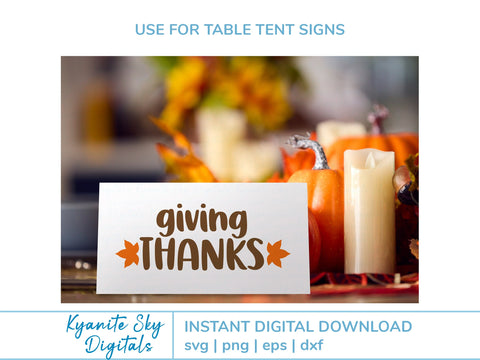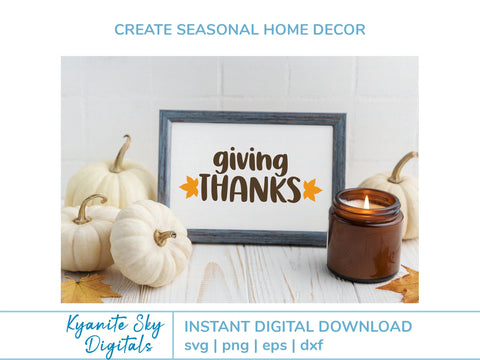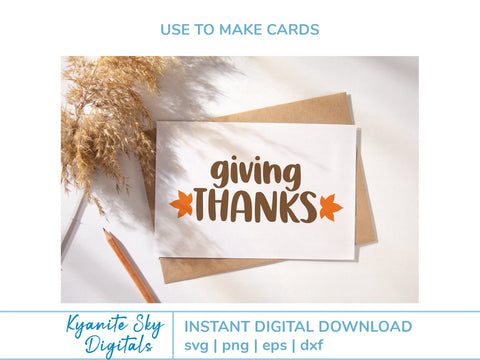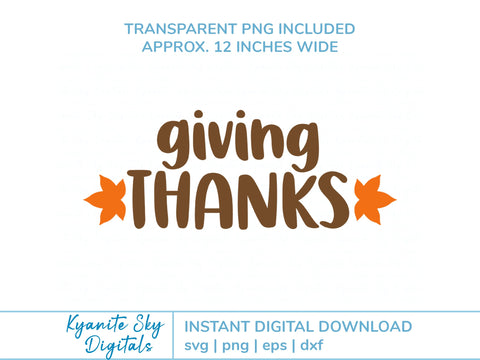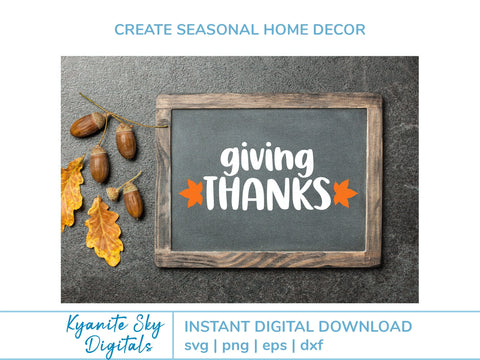
Giving Thanks SVG title with fall leaves
"Giving Thanks" quote in fun casual style font, accented with fall maple leaves. Great for seasonal home decor, Thank You cards, framed wall art, Thanksgiving signs, fall pillows, custom gift bag or tote, shirts, and more.